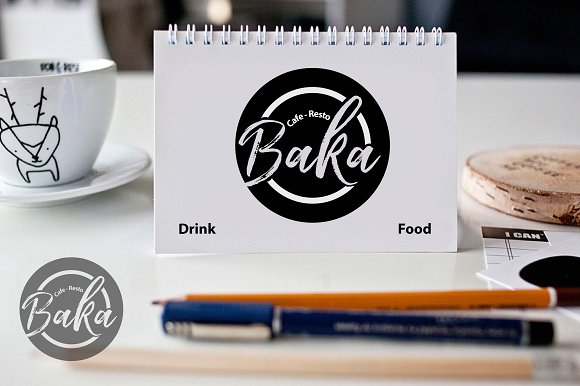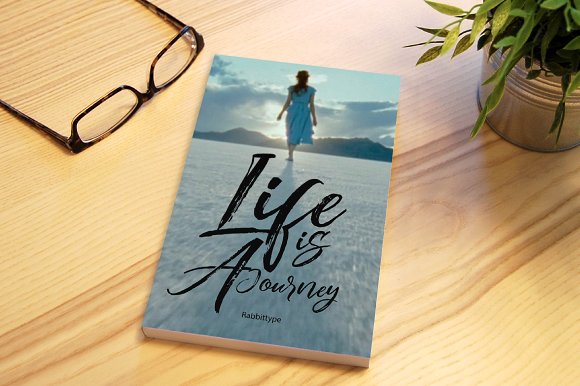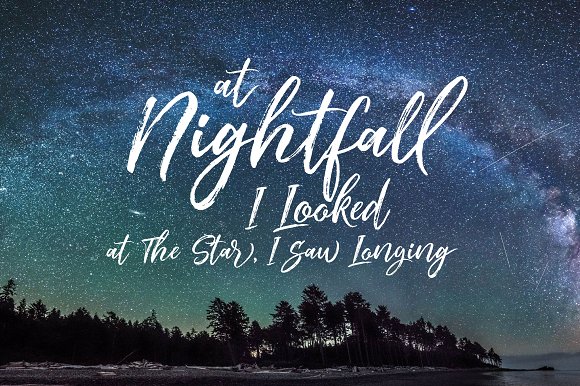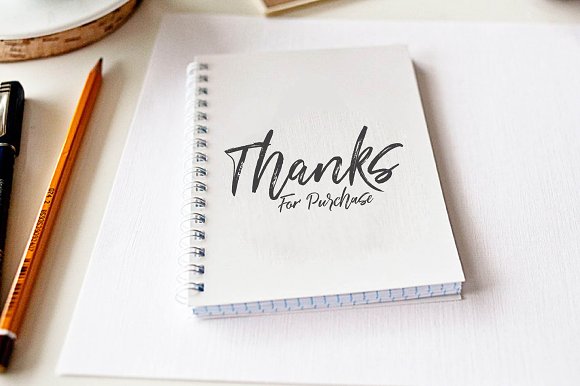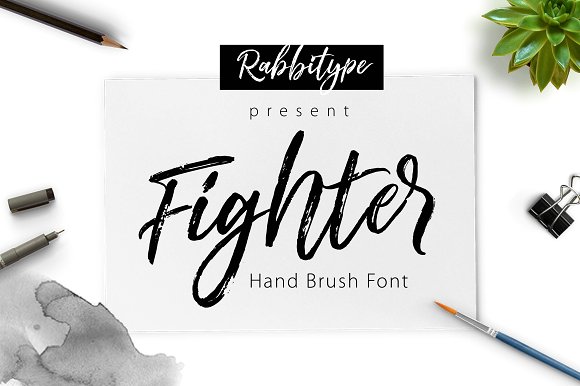
Fighter Font: A Beautiful Handwritten Script for Your Creative Projects
Are you looking for a font that can add a personal touch to your designs? Look no further than Fighter Font, a stunning handwritten script that’s perfect for a variety of creative projects. In this article, we’ll explore the features and benefits of Fighter Font, and show you how it can elevate your marketing, branding, and craft projects.
What is Fighter Font?
Fighter Font is a beautiful handwritten script that’s designed to be fluid and versatile. Its professional look and feel make it an excellent choice for a wide range of applications, from marketing and branding to craft projects and personal use. The font is easy to read, which makes it perfect for body text, headings, and titles.
Key Features of Fighter Font
- Fluid and Versatile: Fighter Font is designed to be fluid and versatile, making it perfect for a variety of creative projects.
- Professional Look: The font has a professional look and feel that’s perfect for marketing and branding projects.
- Easy to Read: Fighter Font is easy to read, making it perfect for body text, headings, and titles.
- Handwritten Script: The font is a beautiful handwritten script that adds a personal touch to your designs.
Uses of Fighter Font
Fighter Font is a versatile font that can be used in a variety of creative projects, including:
- Marketing and Branding: Use Fighter Font to create professional-looking marketing materials, such as brochures, flyers, and business cards.
- Craft Projects: Add a personal touch to your craft projects, such as handmade cards, invitations, and scrapbooking.
- Signage: Use Fighter Font to create eye-catching signs and displays for your business or event.
- Packaging: Add a touch of elegance to your product packaging with Fighter Font.
Benefits of Using Fighter Font
There are many benefits to using Fighter Font in your creative projects, including:
- Unique and Personal: Fighter Font adds a unique and personal touch to your designs, setting them apart from others.
- Easy to Use: The font is easy to use and works well with a variety of design software.
- High-Quality: Fighter Font is a high-quality font that’s designed to produce crisp and clear results.
- Versatile: The font is versatile and can be used in a variety of creative projects.
Tips for Using Fighter Font
Here are some tips for using Fighter Font in your creative projects:
- Use it as a Headline Font: Use Fighter Font as a headline font to add a touch of elegance and sophistication to your designs.
- Pair it with Other Fonts: Pair Fighter Font with other fonts to create a unique and visually appealing design.
- Keep it Simple: Keep your design simple and clean to let Fighter Font shine.
Fighter Font is a beautiful handwritten script that’s perfect for a variety of creative projects. Its fluid and versatile design makes it easy to use and works well in many different types of projects. With its professional look and feel, Fighter Font is an excellent choice for marketing and branding projects, as well as craft projects and personal use. So why not give Fighter Font a try and see how it can elevate your designs?